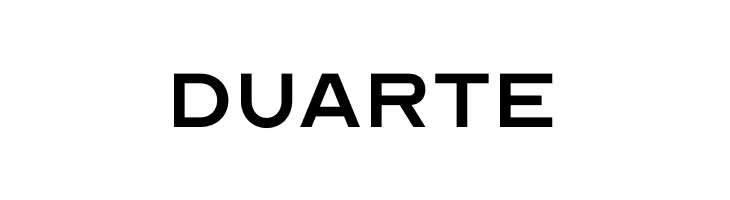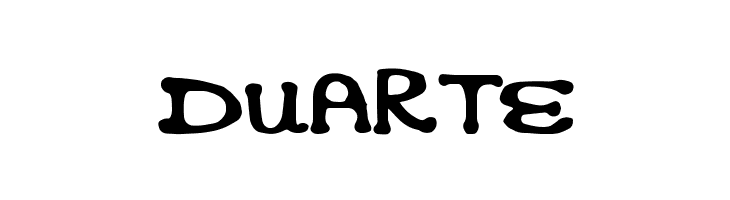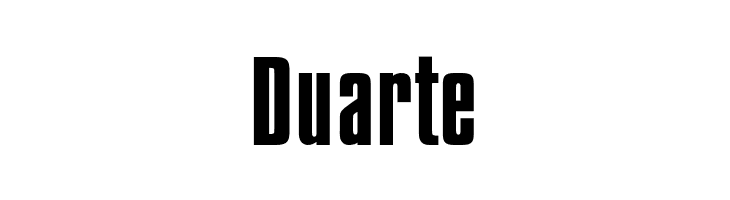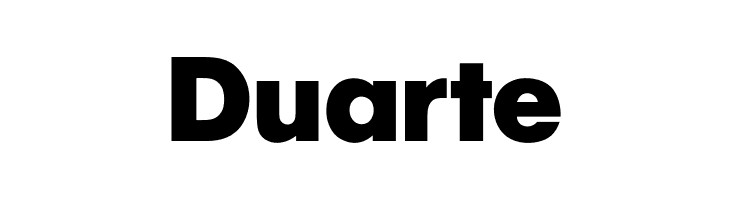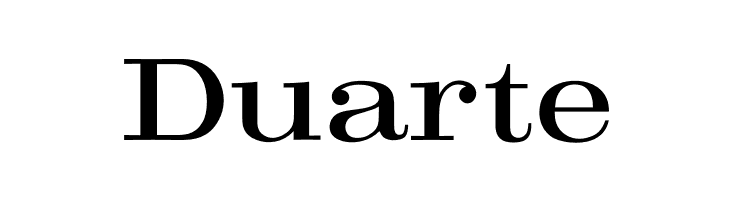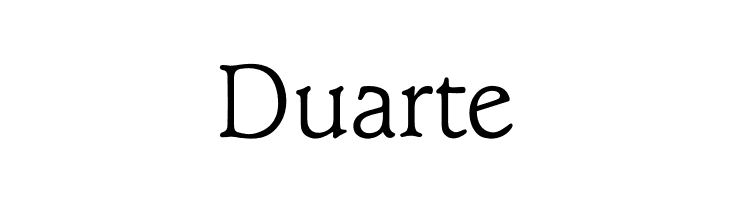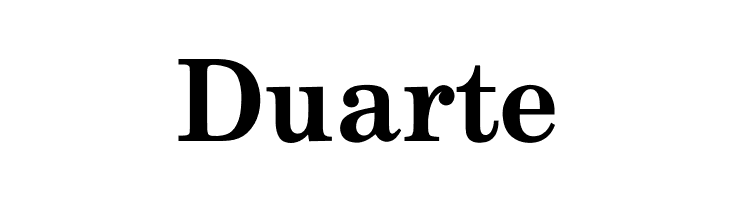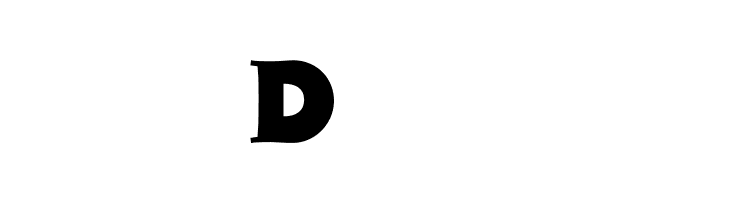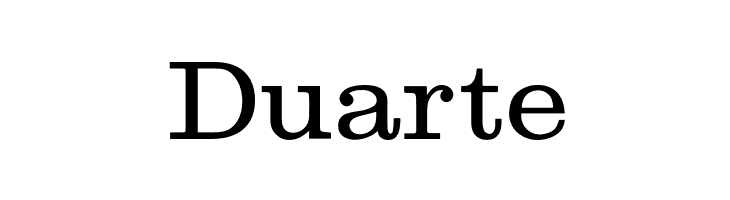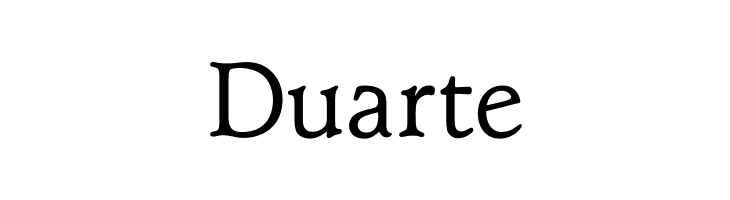
A classic serif font with modern elegance and strong readability.
A bold, classic serif typeface with strong, authoritative strokes.
A bold, modern font with thick strokes and a strong presence.
A bold, vintage-style font with pointed serifs and dramatic flair.
A bold, italicized font with a dynamic and energetic style.
A bold, decorative font with high contrast and slightly condensed letterforms.
A classic serif font with elegant curves and a traditional appearance.
A bold, chiseled serif font with a three-dimensional, engraved appearance.
A clean, modern sans-serif font with geometric structure and uniform strokes.
A tall, narrow Art Deco-inspired font with geometric elegance.
A bold, slab serif font with strong, impactful characters.
A modern, geometric font with clear, structured characters.
A bold, modern font with structured, geometric shapes and a slightly condensed style.
An elegant script font with flowing, decorative swashes and intricate loops.
A bold, geometric typeface with clean lines and a modern aesthetic.
A modern sans-serif font with bold, clean lines and a professional appearance.
A modern, geometric sans-serif font with a clean and professional look.
A classic serif font with elegant, sharp serifs and a timeless design.
A classic serif font with elegant strokes and balanced proportions.
A classic serif font with elegant, sharp serifs and a traditional appearance.
A playful, hand-drawn font with a quirky and lively design.
A bold serif font with strong, thick strokes and sharp serifs.
An elegant and flowing script font with sophisticated curves and loops.
A bold, italic font with tight spacing and a modern, dynamic style.
A bold, condensed font with high contrast and a modern style.
A bold, impactful typeface with strong strokes and tight spacing.
Bold, shadowed font with a modern and decorative style.
A bold, modern font with clean lines and a professional appearance.
A clean and elegant font with a modern twist, featuring well-defined characters and slight contrast.
A refined serif font with high contrast and elegant, elongated strokes.
An elegant script font with fluid, cursive strokes and a sophisticated appearance.
A dynamic and elegant script font with flowing, cursive letterforms.
A classic slab serif font with bold, well-defined letterforms and strong vertical stress.
A modern serif font with elegant strokes and medium contrast.